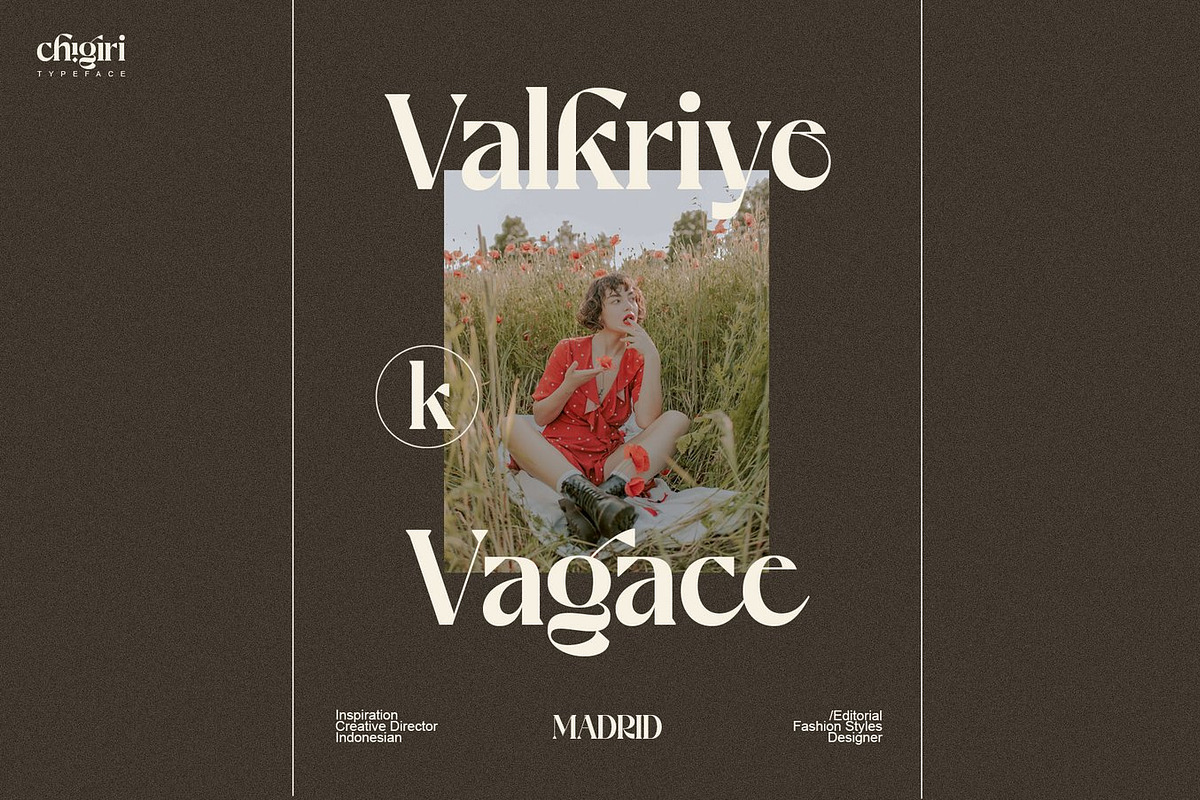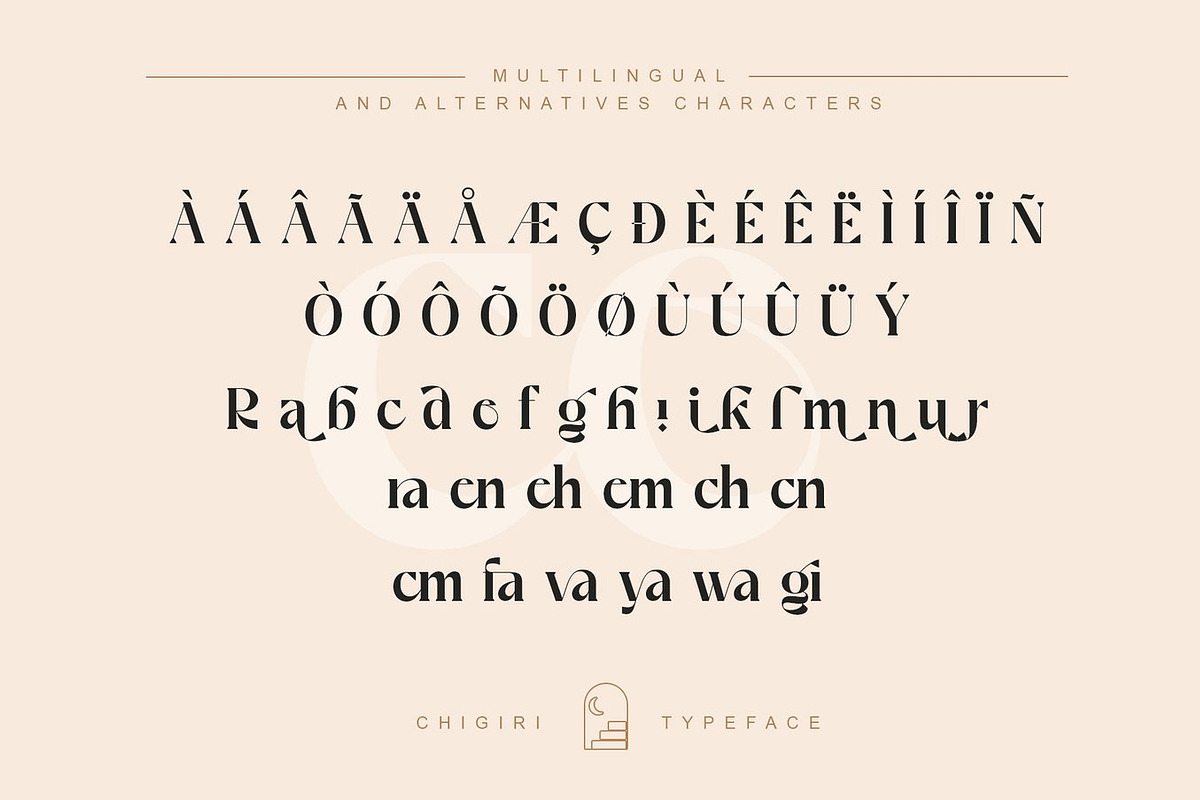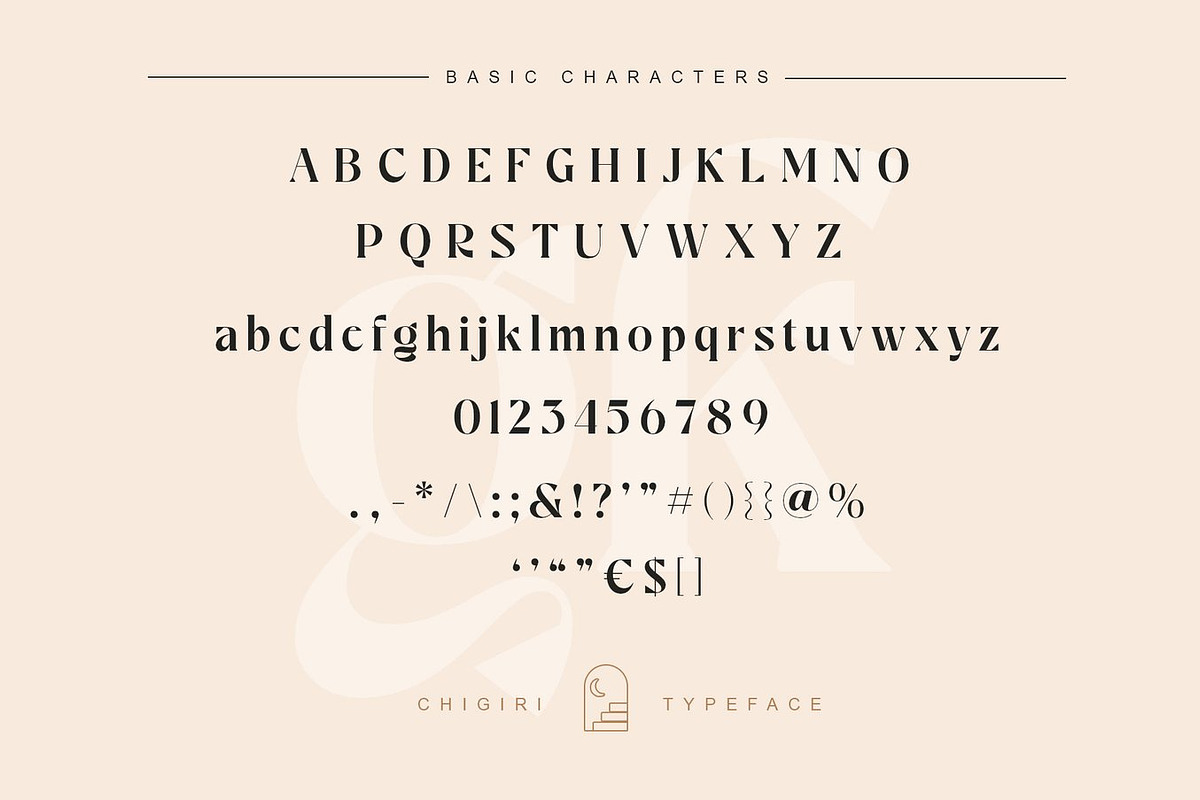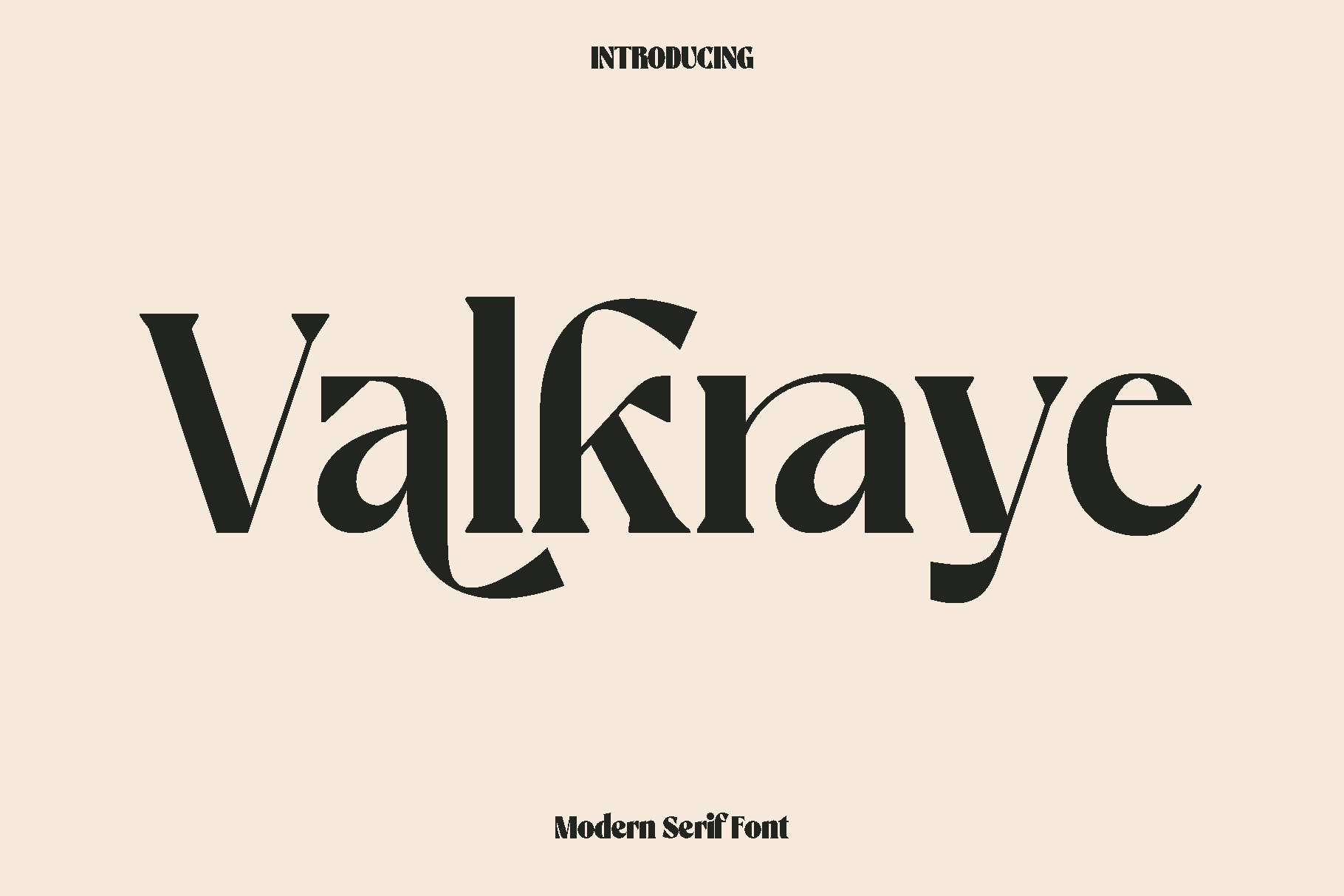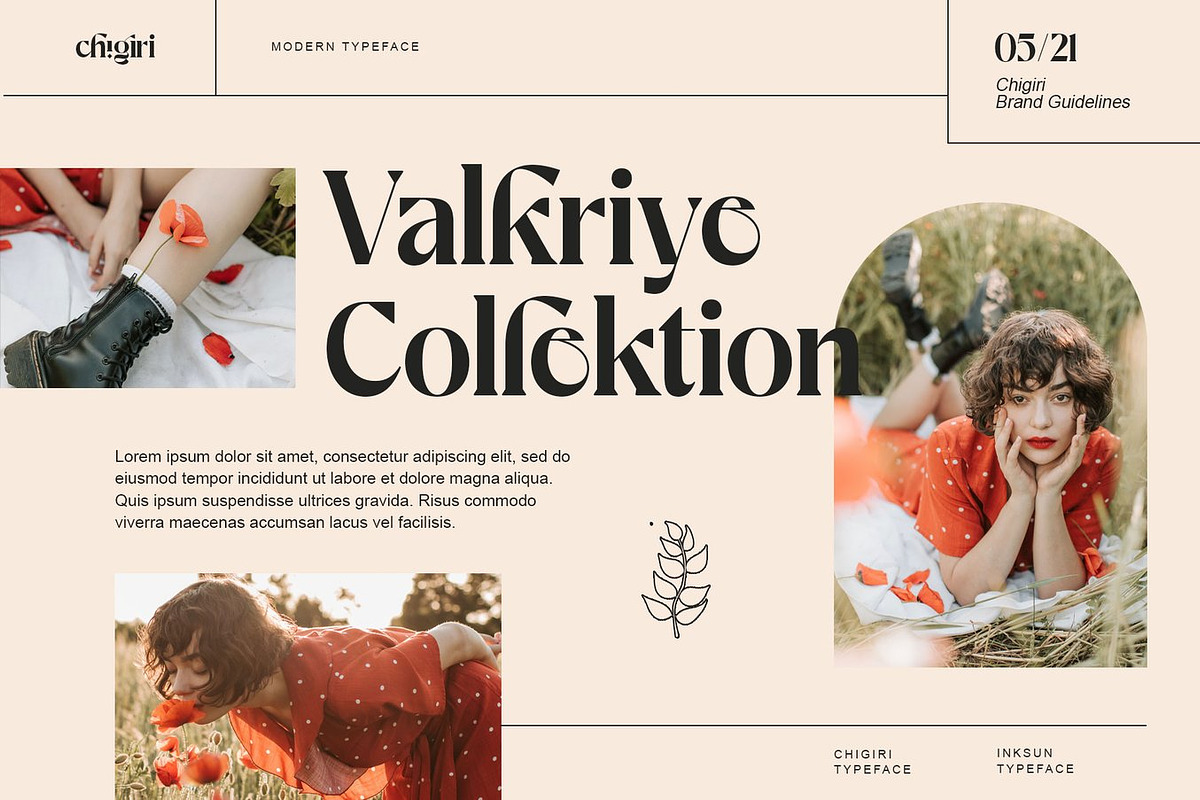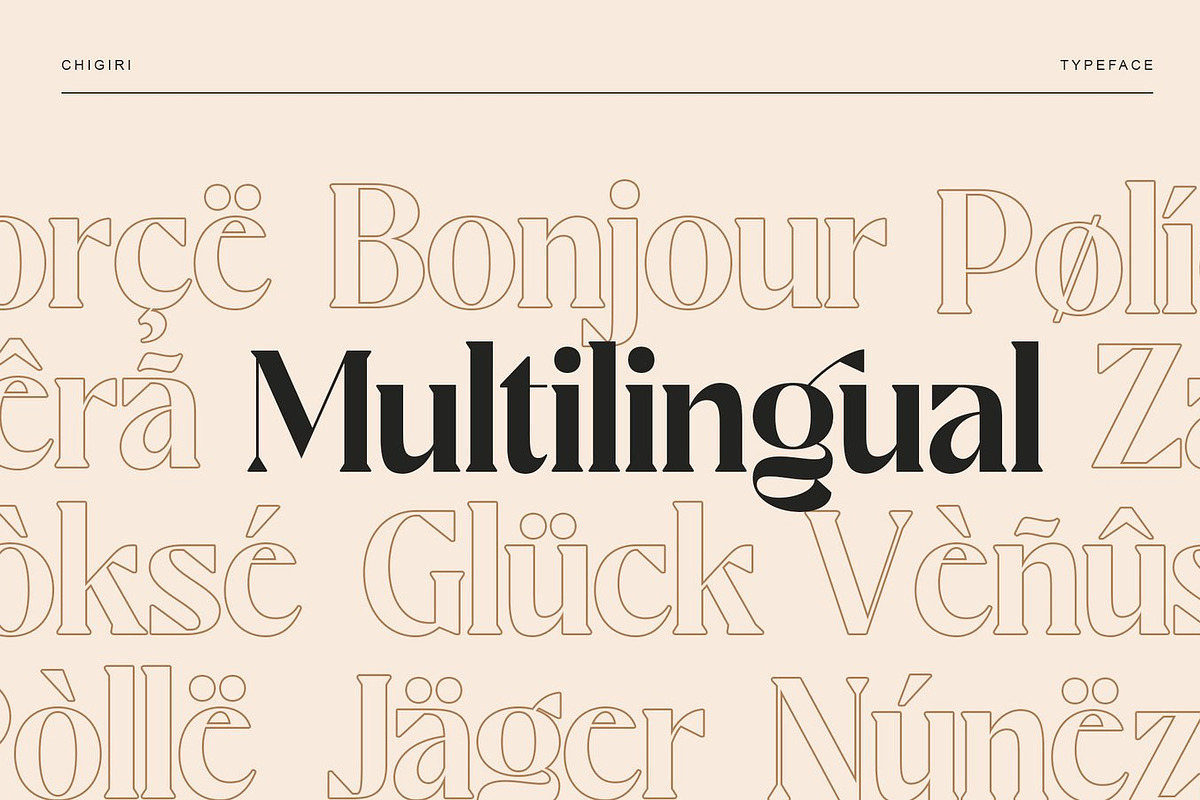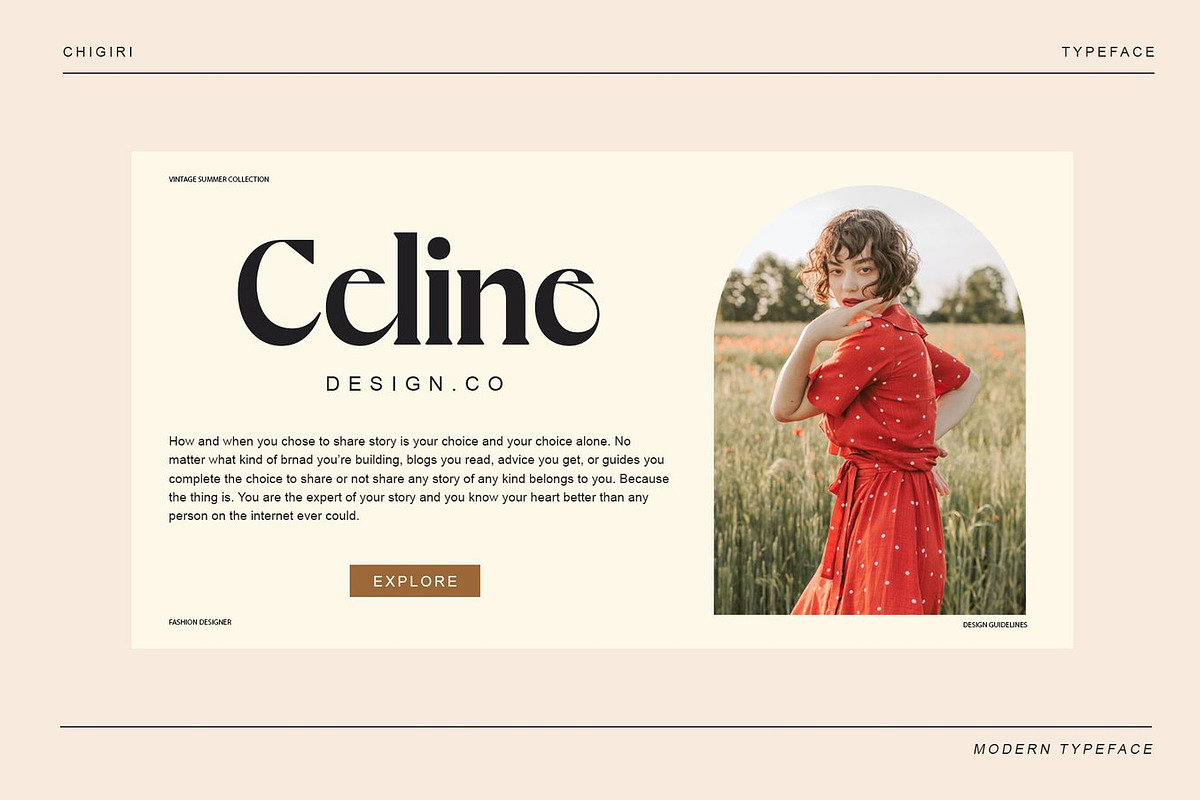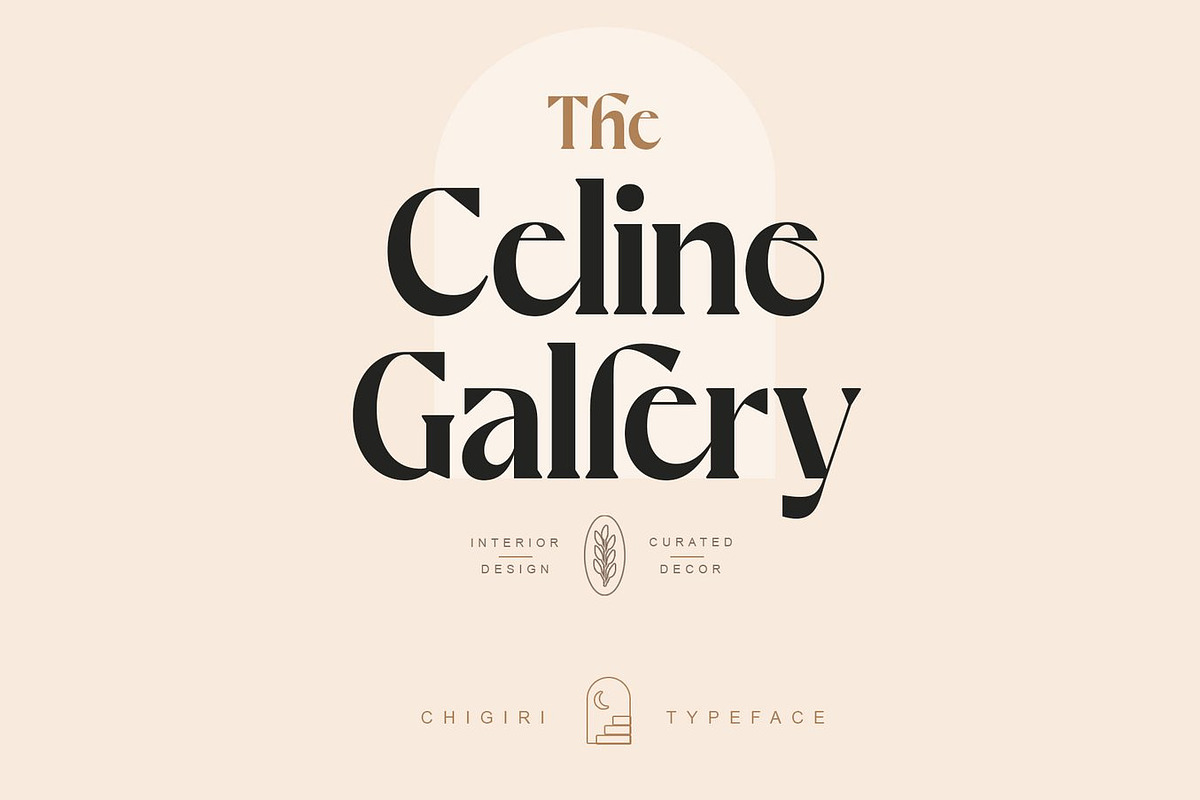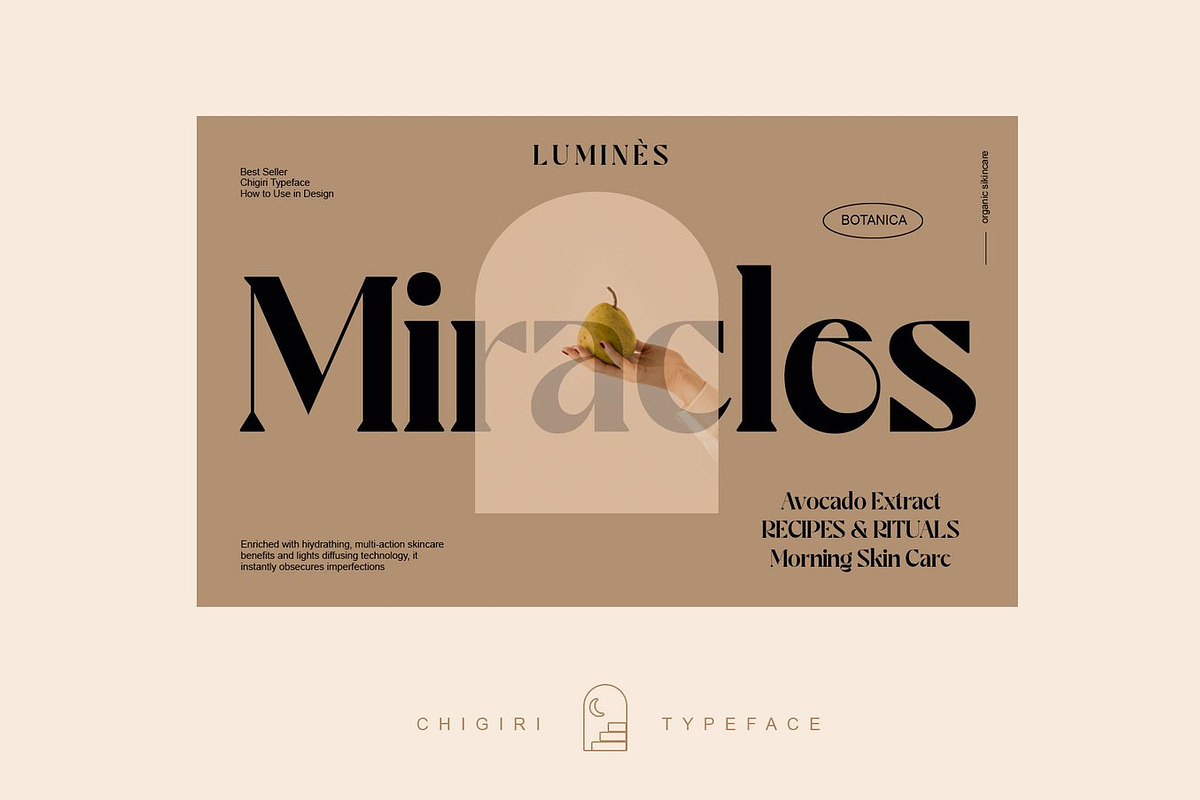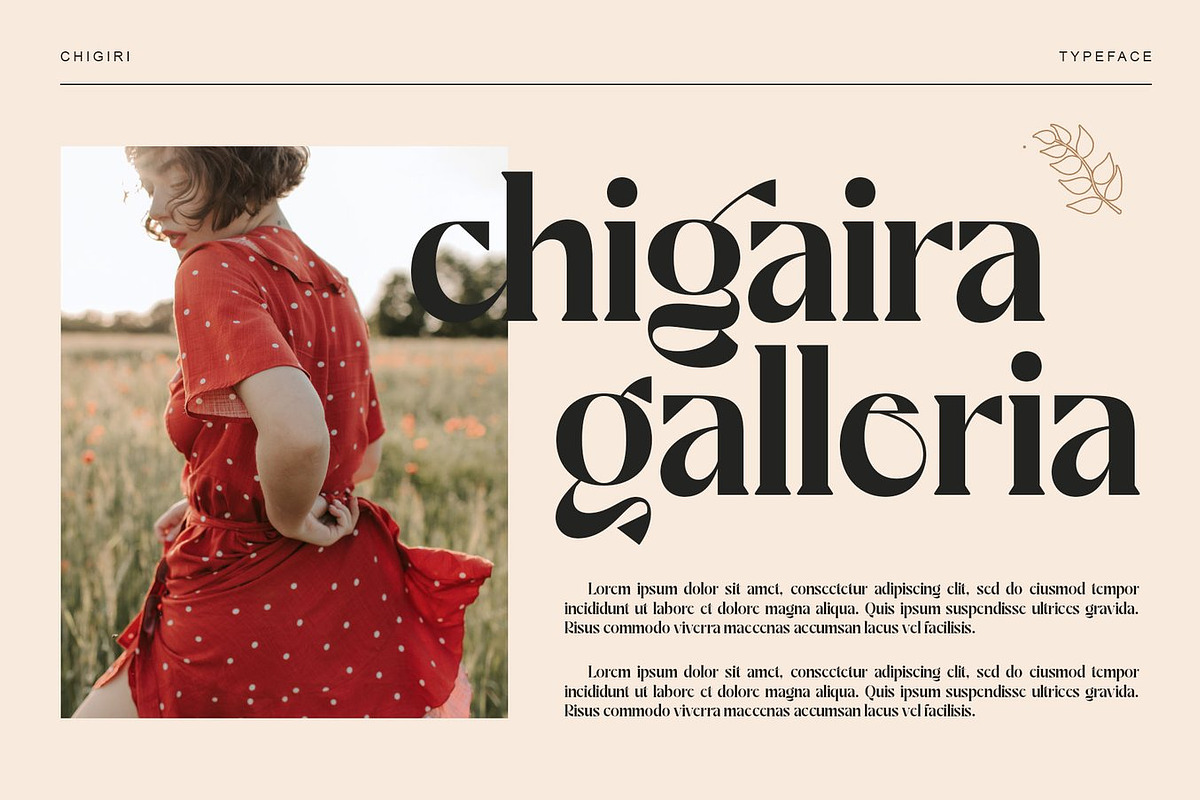
Valkraye - Serif Font
Valkraye is a serif display font designed to express classic beauty, femininity, and refined elegance. Inspired by timeless editorial typography and graceful letterforms, Valkraye carries a soft yet confident personality that brings charm and sophistication into every design. Its carefully shaped serifs and beautifully crafted alternate characters add a decorative touch that feels luxurious while remaining clear and readable.
This font shines in projects that celebrate style and grace. Valkraye is perfect for logos and branding, wedding invitations, stationery, packaging, product labels, social media content, photography watermarks, printed quotes, and special event designs. Whether used in large display titles or elegant accents, Valkraye creates a warm and polished visual impression that enhances the overall aesthetic.
Valkraye blends traditional serif structure with modern refinement, giving designers a versatile tool for romantic, feminine, and professional themes. The balanced proportions and stylish alternates help create eye catching compositions that feel expressive and high end. Each letterform is crafted to bring harmony and elegance, making your work look thoughtful and beautifully designed.
With its timeless appeal and decorative character options, Valkraye allows you to design with confidence and sophistication. It is an ideal choice for creatives who want to communicate luxury, beauty, and elegance through typography.
Valkraye Font Features:
• Elegant serif display characters
• Beautiful alternate stylistic characters
• Punctuation, numbers, and symbols
• Uppercase and lowercase
• OpenType features